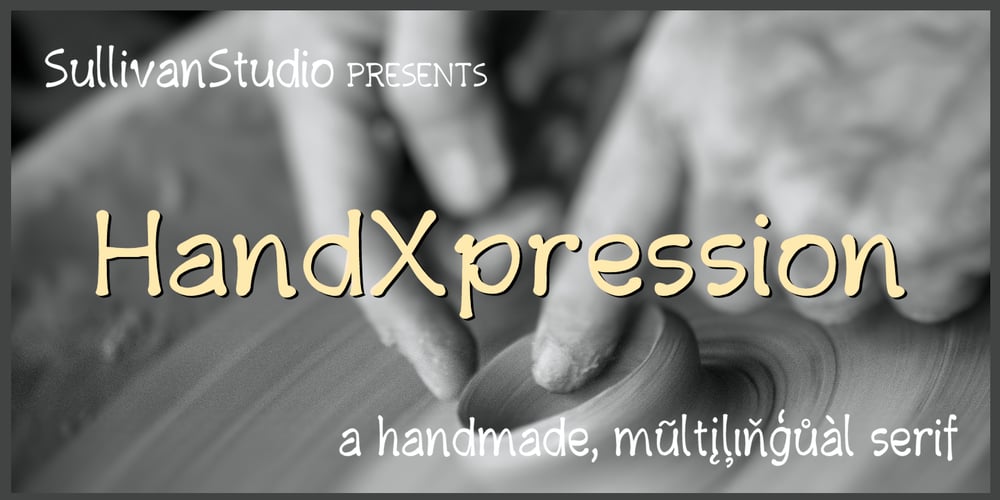
HandXpression
HandXpression font
HandXpression Font Family was designed by Ariel Sullivan and published by SullivanStudio. HandXpression contains 4 styles and family package options. HandXpression was created with a stylus, imitating the experience of writing on a whiteboard with a marker. Its 646 glyphs cover from the Western to a wide part of Eastern European (Latin) alphabets. It also has all Greek letters for Math usage: yes, HandXpression makes formulas, and they look great, especially with LaTeX/XeTeX systems.The font has true italics, as well as some useful OpenType features: fractions, capital spacing, scientific superiors/inferiors, old style numbers, as well as standard ligatures and localized forms.Enjoy!